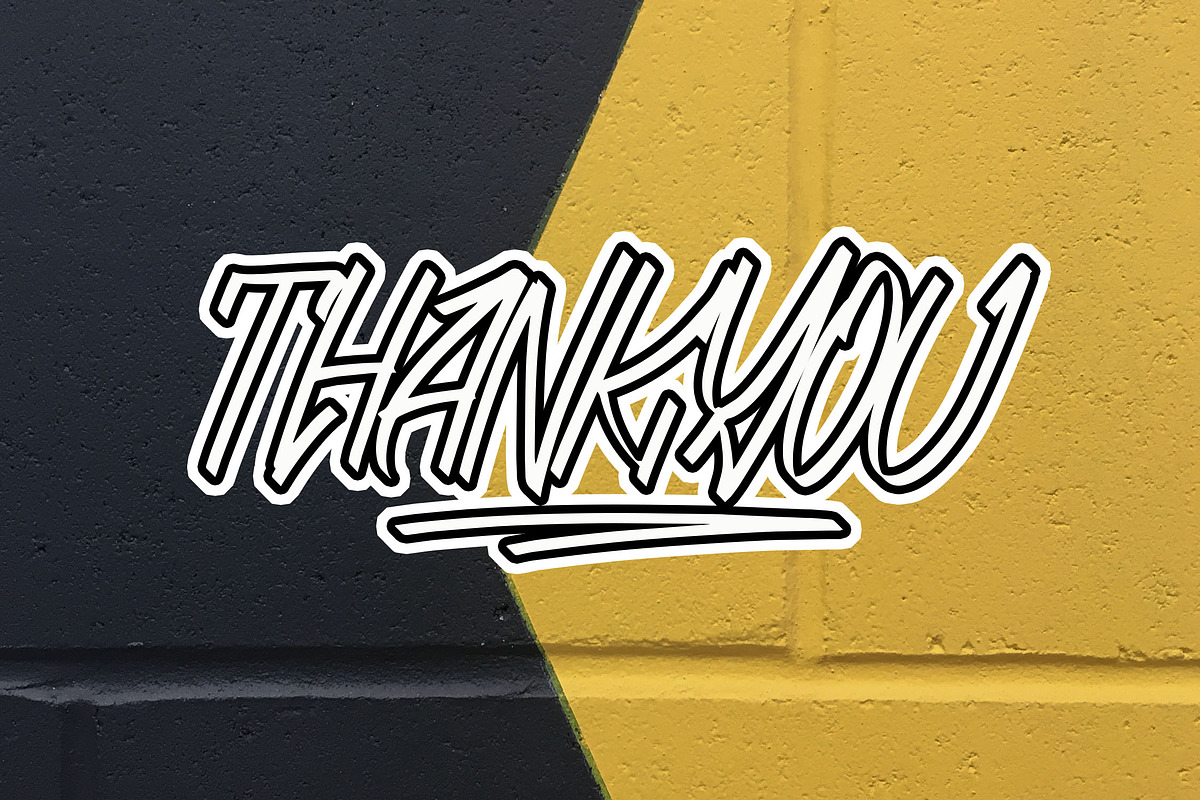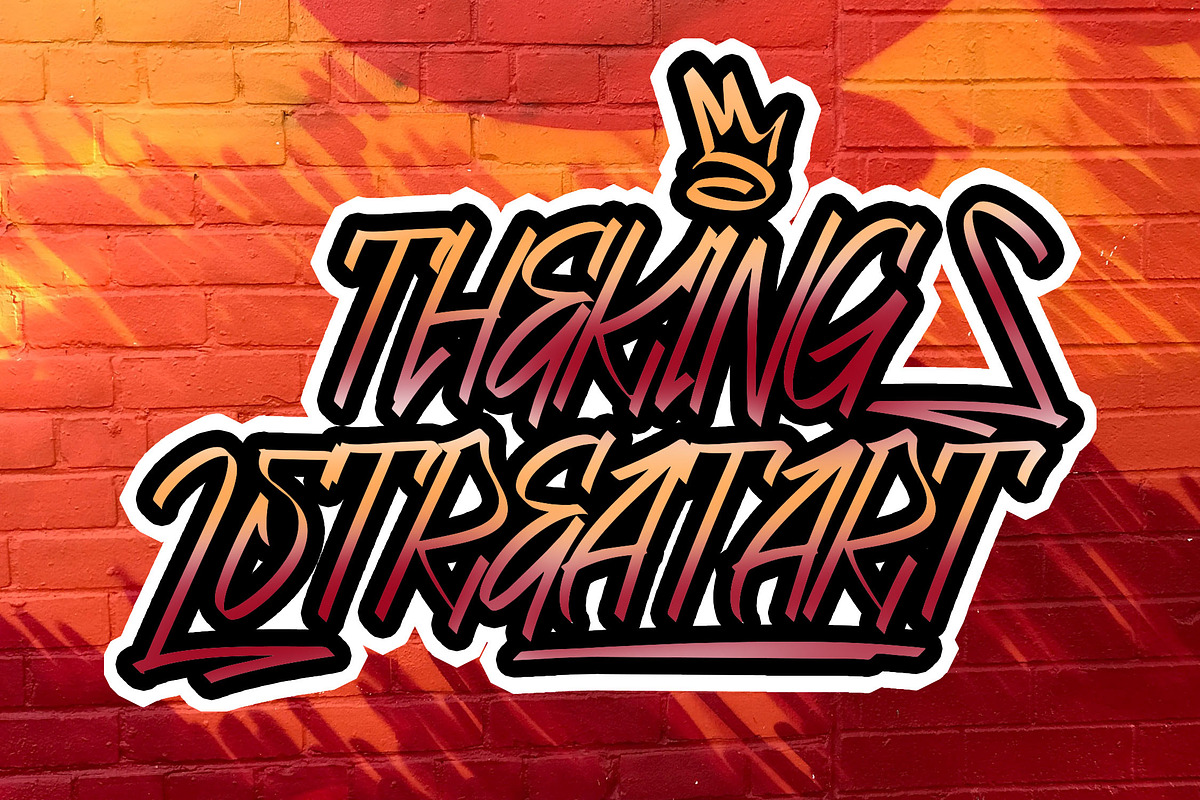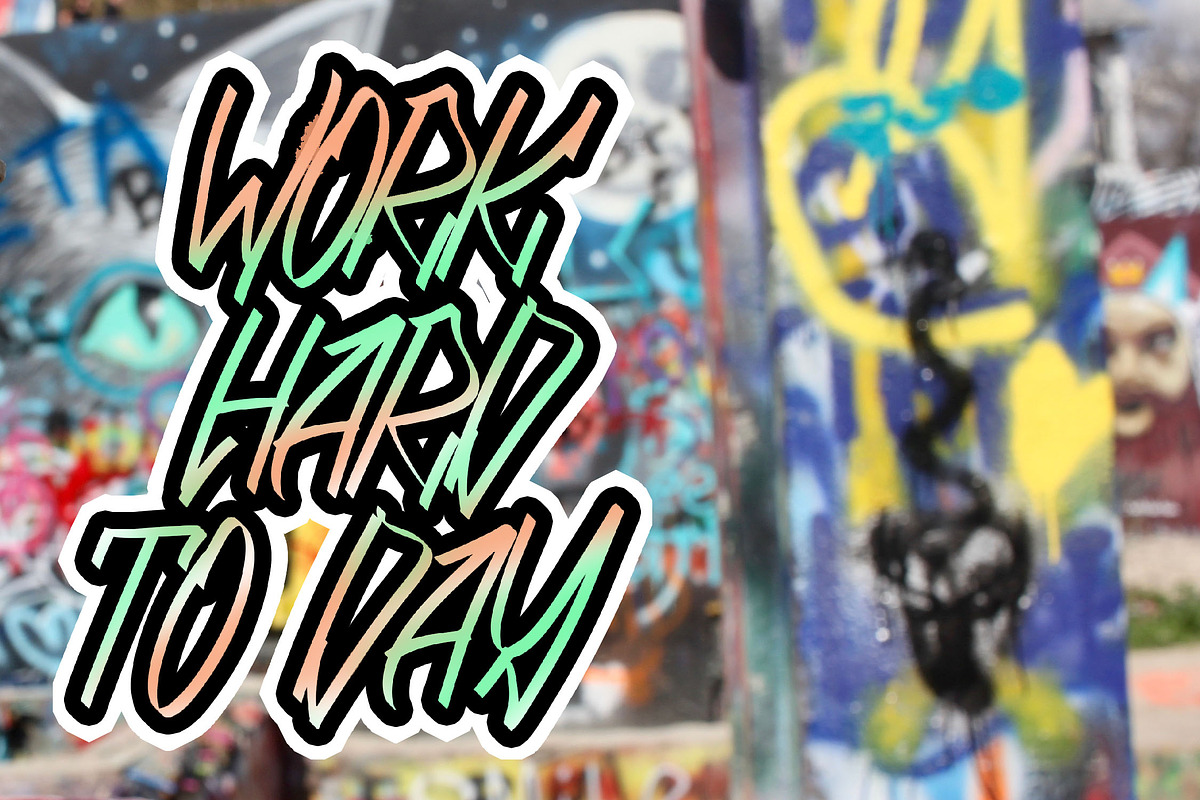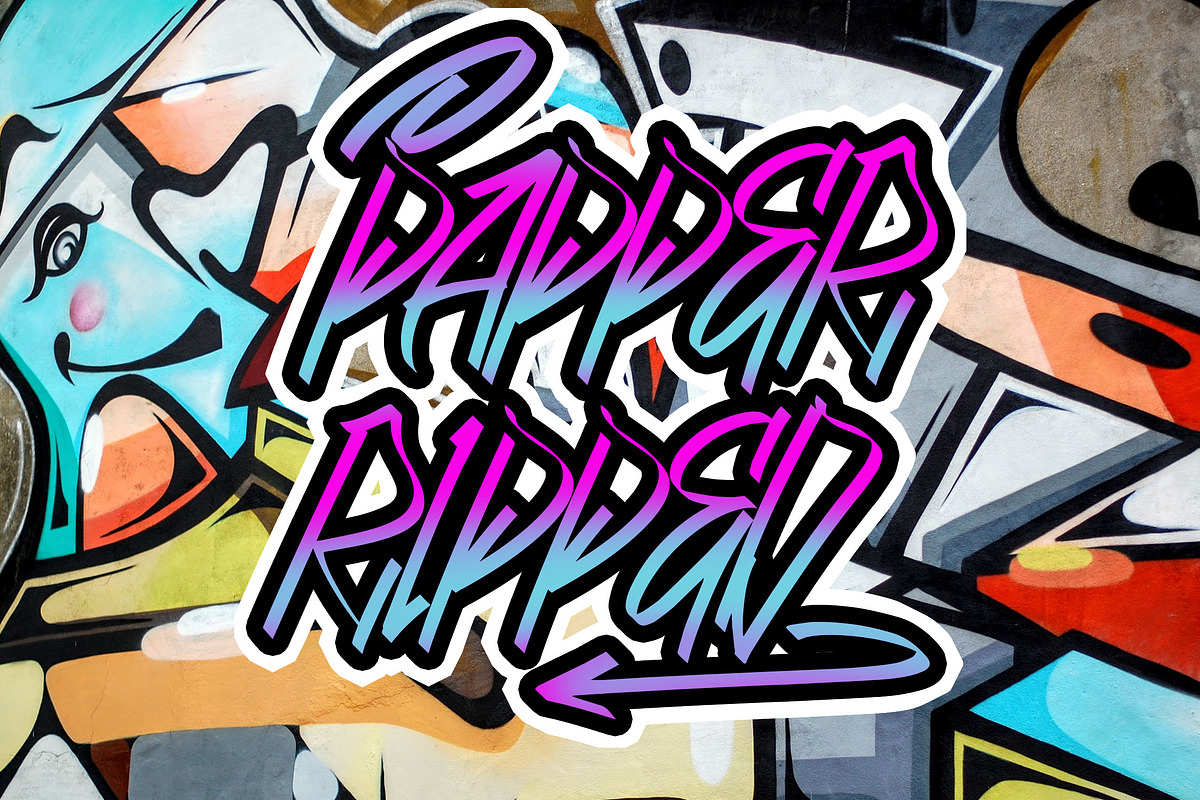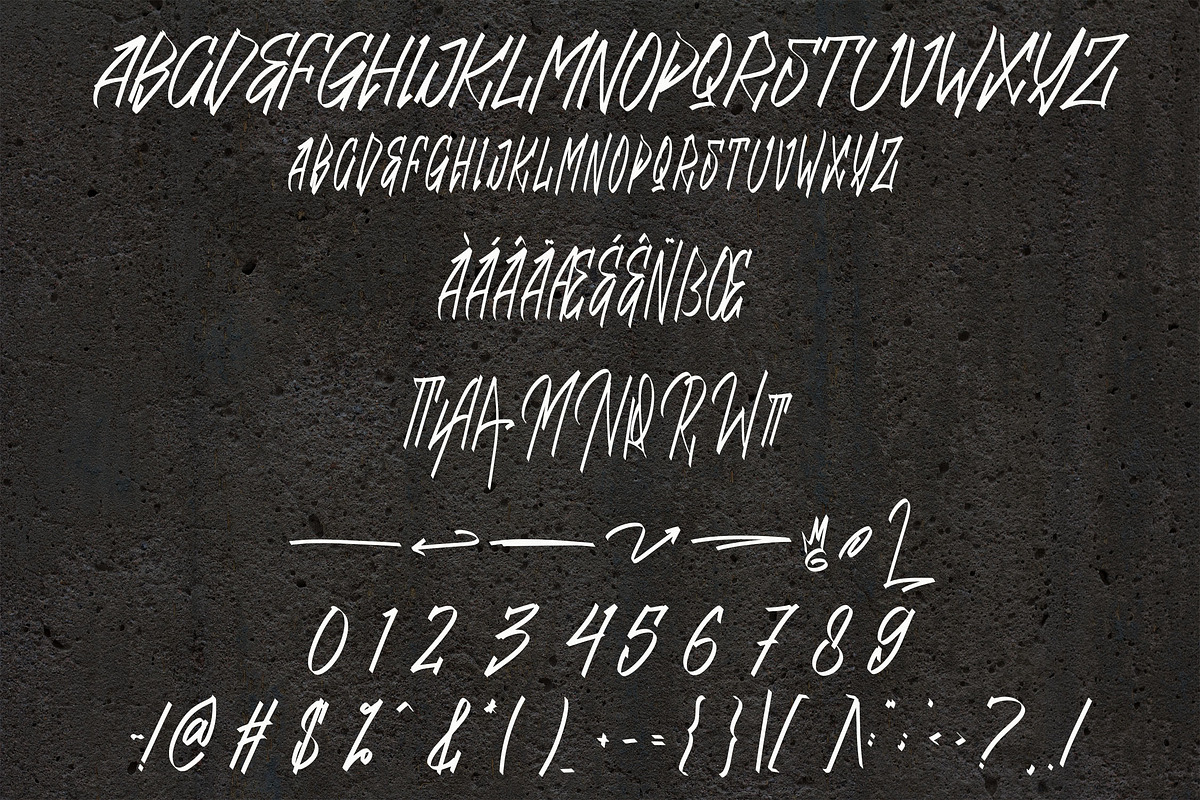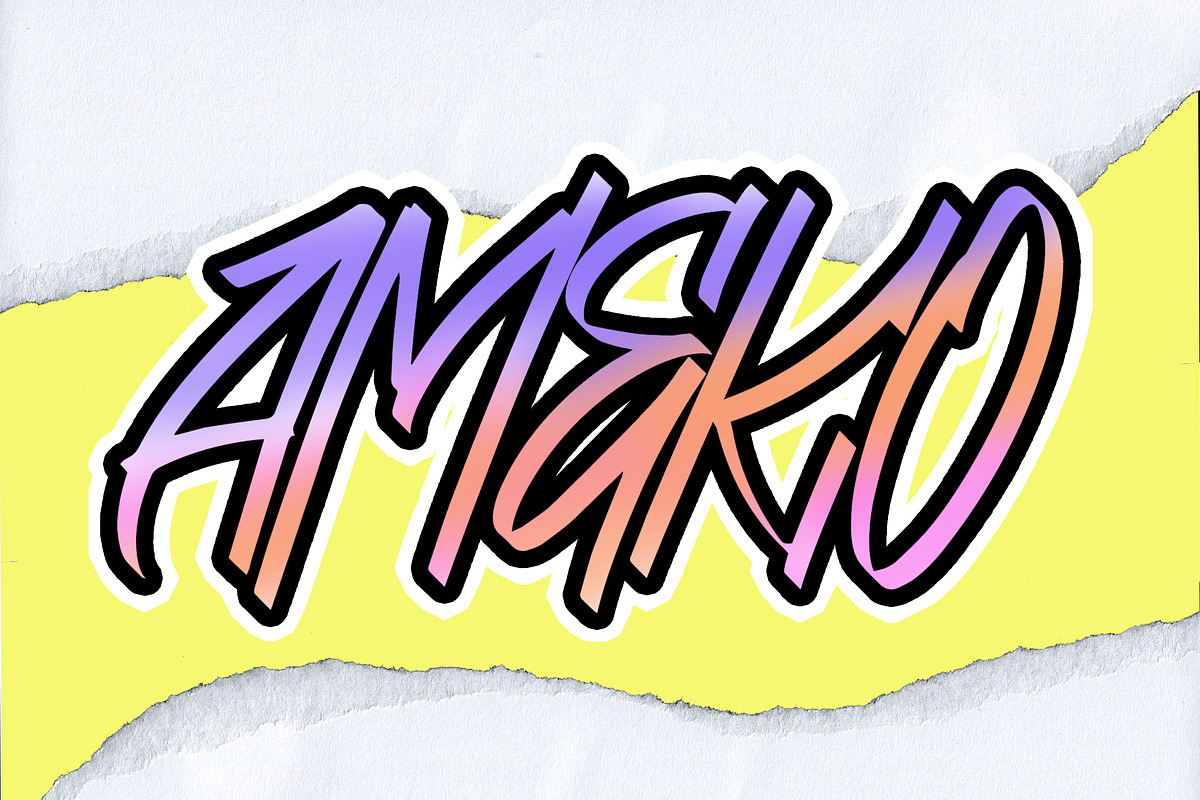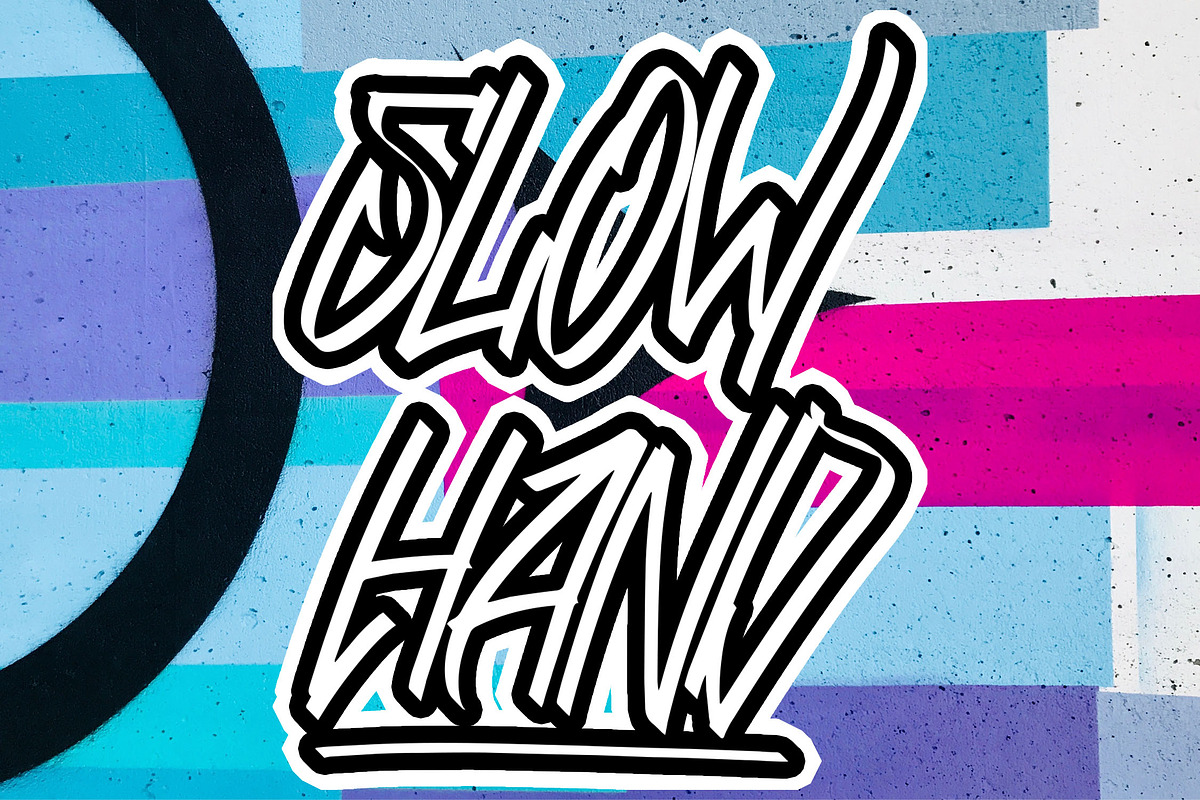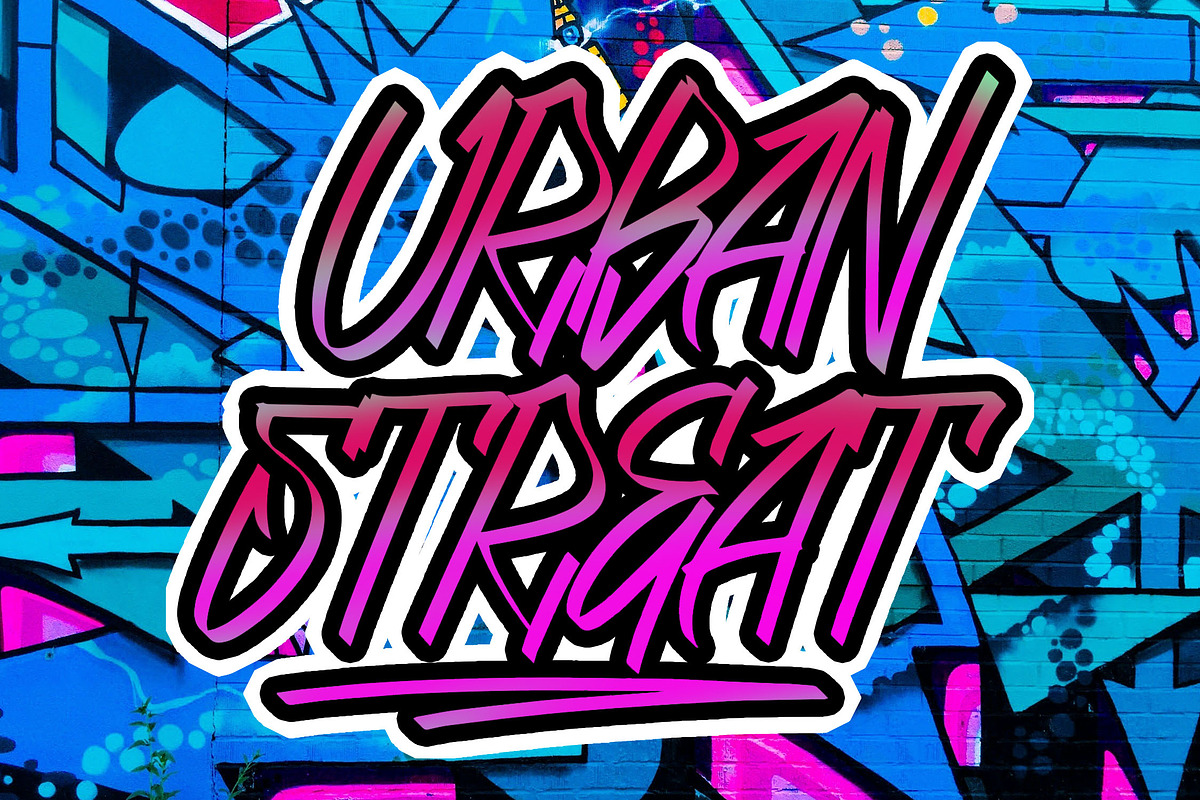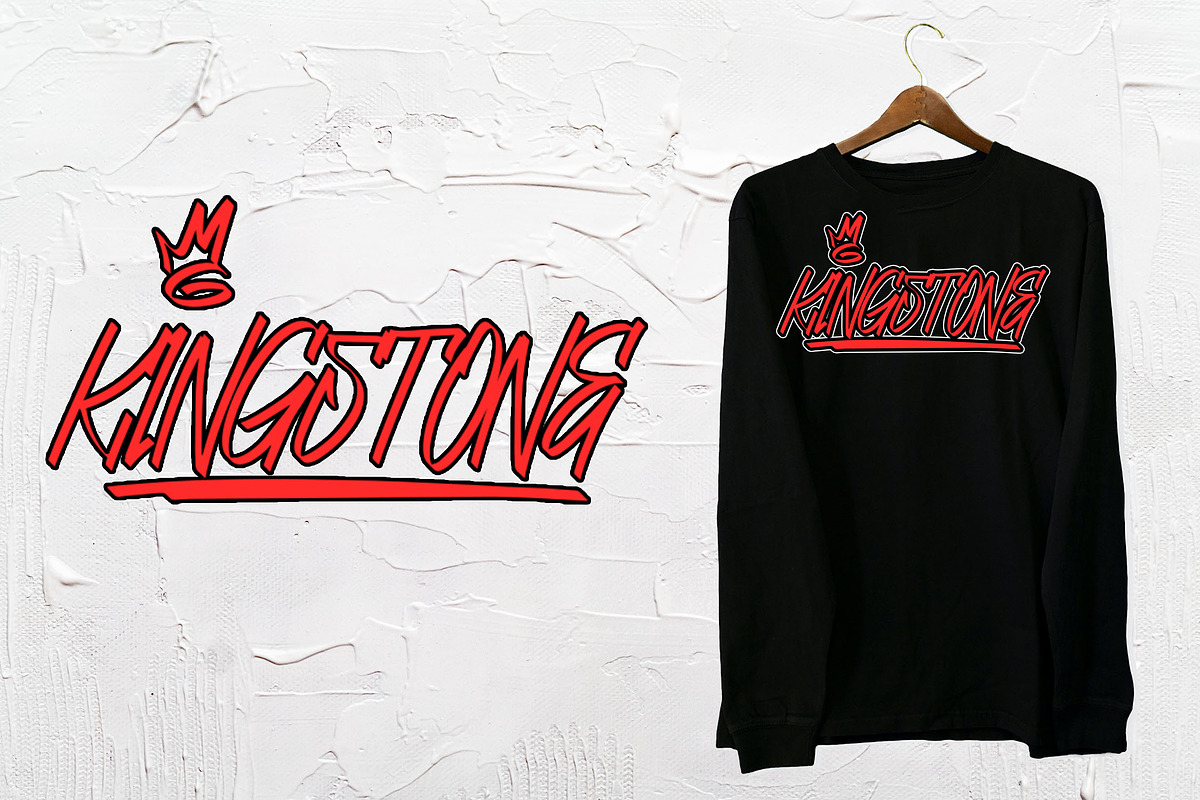
AMEKO Bold Brush Font
AMEKO: Bold Hand-Brush Font for Creative Projects
Unleash creativity with AMEKO, a bold hand-brush font designed with unique, expressive character shapes. Its dynamic and versatile style is perfect for enhancing graphic designs, from branding to posters, packaging, and more. Whether you're creating eye-catching headlines or artistic logos, AMEKO adds an authentic, handcrafted touch to your work.
- Stylistic Enhancements: Includes ligatures, stylistic alternates, and swashes.
- Global Reach: Full multilingual support for international designs.